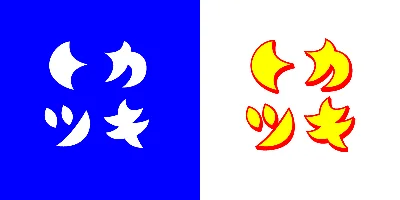
Moolong Tokatsuki Kana Font
Moolong Tokatsuki Kana Font is a distinctive and stylized font inspired by Japanese calligraphy and traditional Kana script. Its elegant strokes and unique design make it ideal for projects that need an Eastern aesthetic, including cultural branding, packaging, posters, event invitations, and any design where an artistic, hand-crafted touch is required.